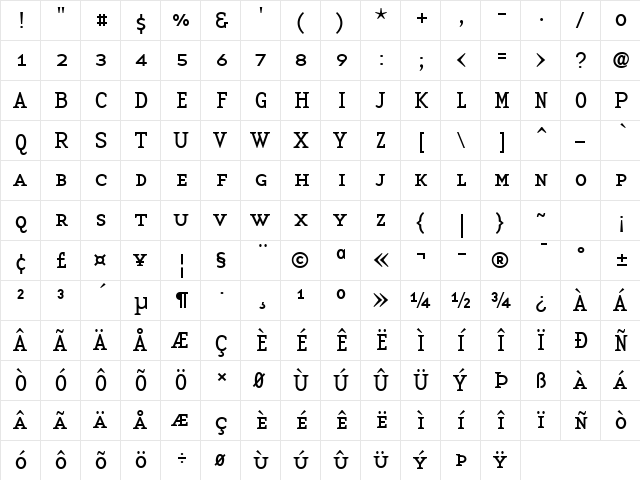
BaseTwelveSerif, SmallCaps Bold Regular
Design Context for BaseTwelveSerif, SmallCaps Bold Typeface
BaseTwelveSerif, SmallCaps Bold carries the refined structure of traditional serif typography, with bracketed terminals and considered proportions that communicate credibility and craft. The heavy weight commands attention and anchors typographic hierarchies.